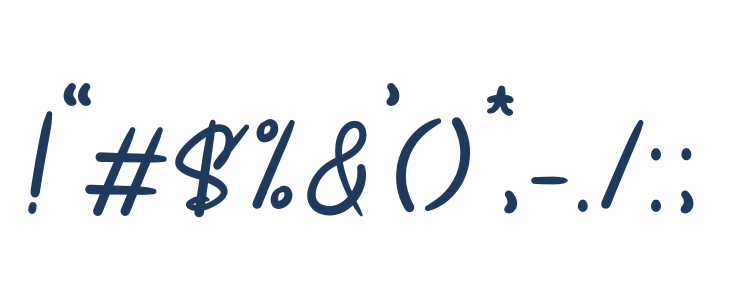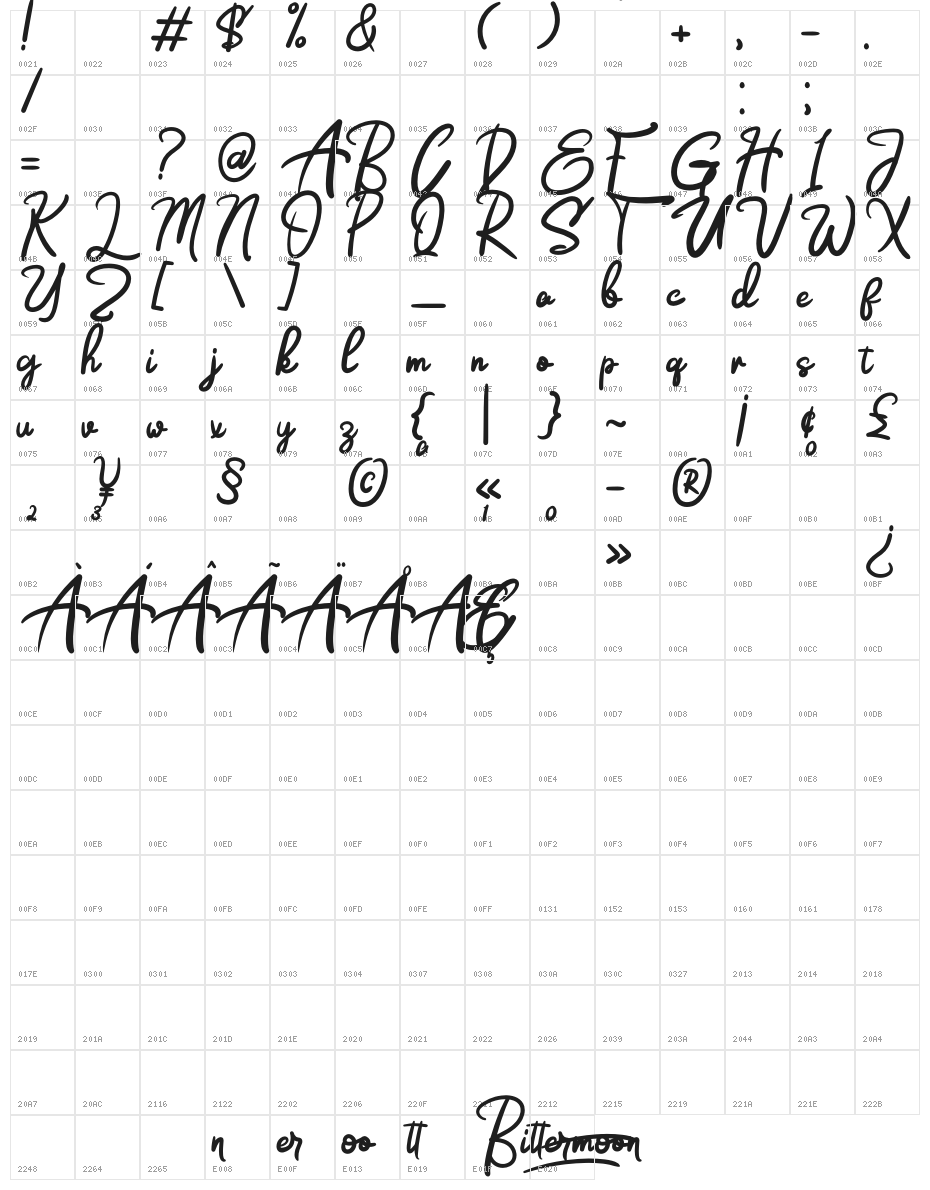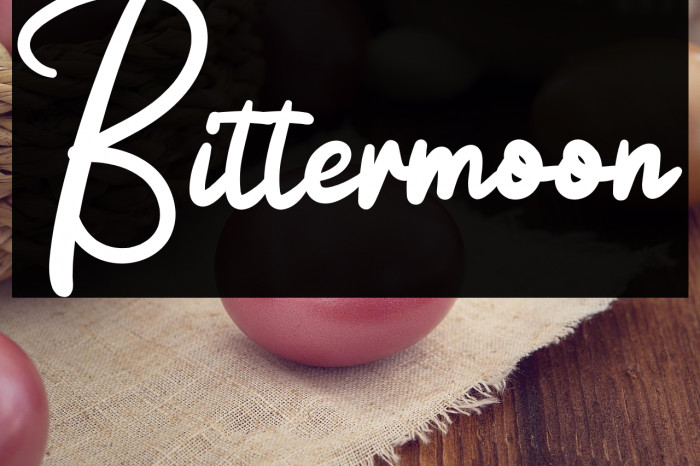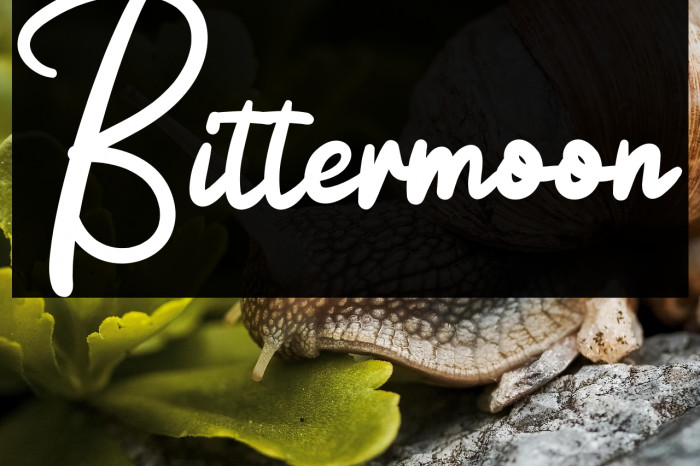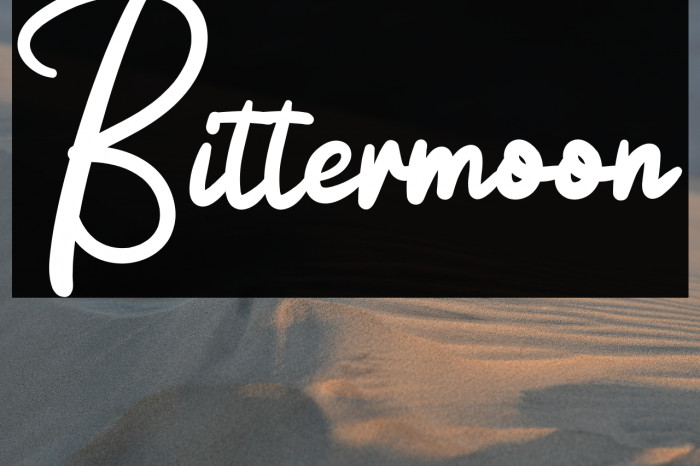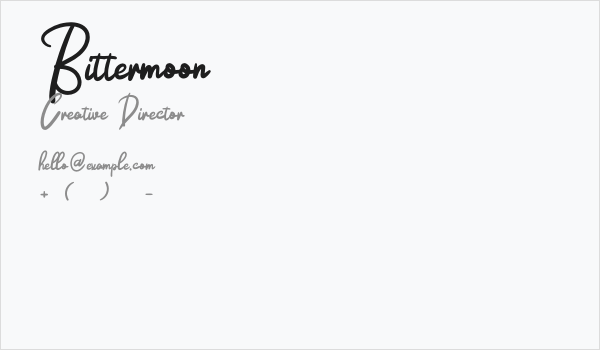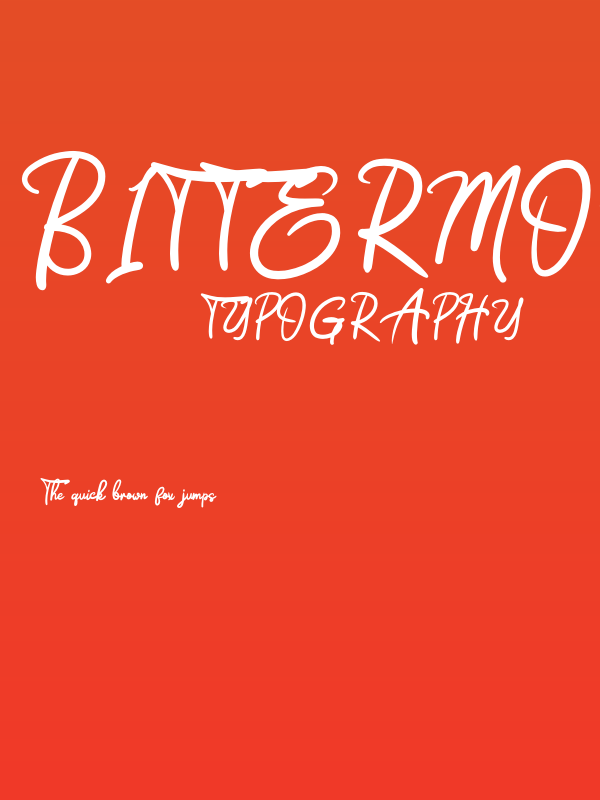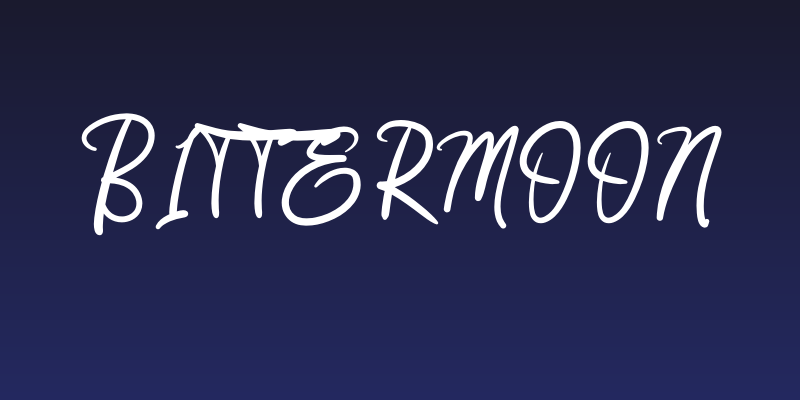
Bittermoon Font
Bittermoon Description
This font features a dynamic and flowing script style, characterized by its elegant and fluid letterforms. The uppercase letters exhibit a graceful, cursive design with smooth curves and a slight slant, giving a sense of motion and sophistication. The lowercase letters continue this theme with connected strokes, enhancing the script's continuity and charm. The numerals and special characters maintain the same stylistic approach, ensuring consistency throughout. This font's overall appearance is both stylish and versatile, making it suitable for a variety of creative applications.
| Overall Style | Elegant, Modern |